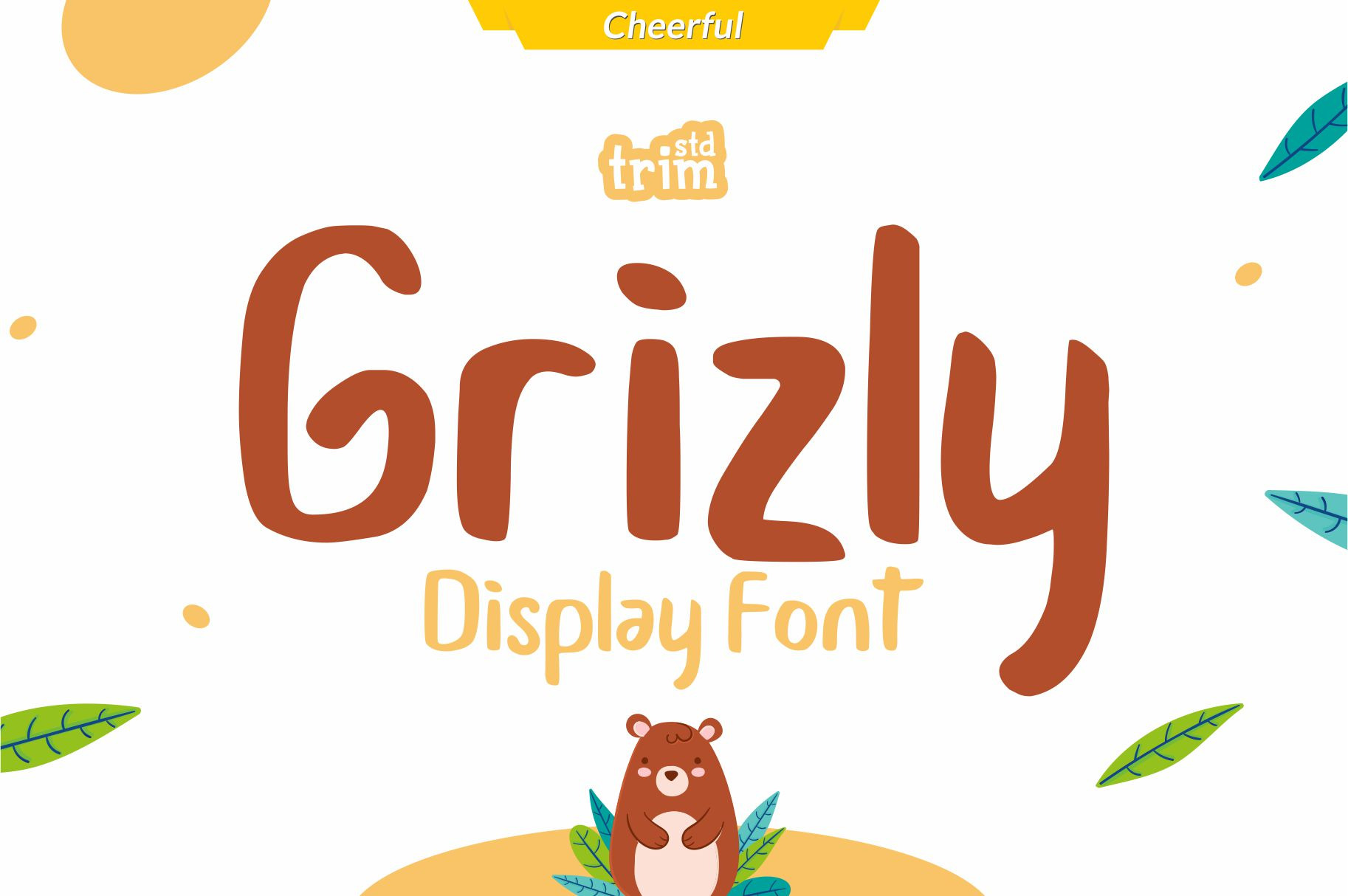
Grizly Playful Display Font
Grizly is a sweet and friendly display font. Its simplicity makes this font incredibly versatile, fitting a wide range of contexts. Add it to your creative ideas and notice how it makes them stand out!
Its perfectly suited for crafter and graphic artist to complete their design such as invitation, advertisement, poster, logo, birthday, product sign, and many more!